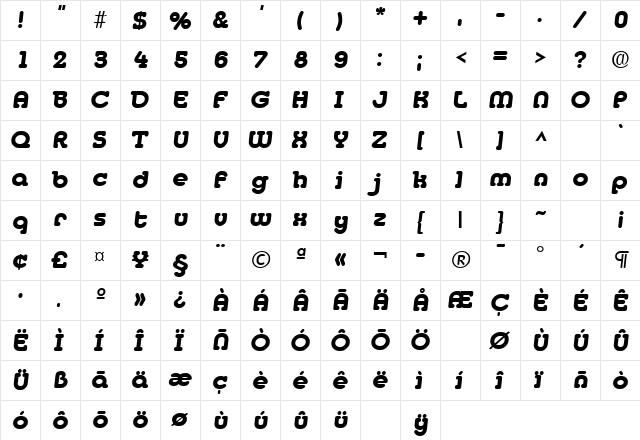
Media Bold Italic Font Preview
Media Bold Italic
Media Bold Italic Font Details
Design Context for Media Typeface
Media offers clean, dependable letterforms without strong stylistic allegiance, making it a practical choice for designers who need flexibility. The slanted form adds forward momentum and visual energy. The heavy weight commands attention and anchors typographic hierarchies.
Pro Tip: Try Media for annotation and caption copy alongside an upright companion — the contrast in angle creates a dynamic but ordered typographic system.